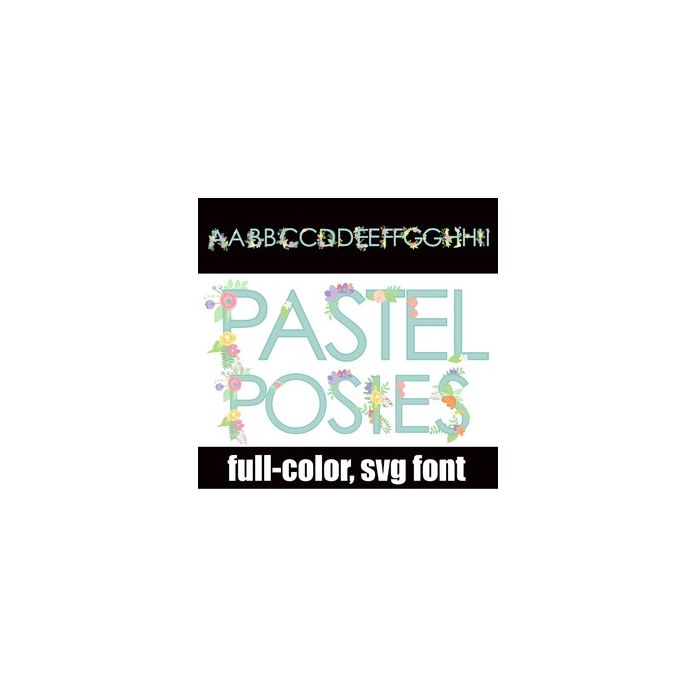
This pretty sans serif has elaborate florals throughout in pretty pastel colors. There is an alt case with additional colors that you can access through your system or Silhouette's glyph map.